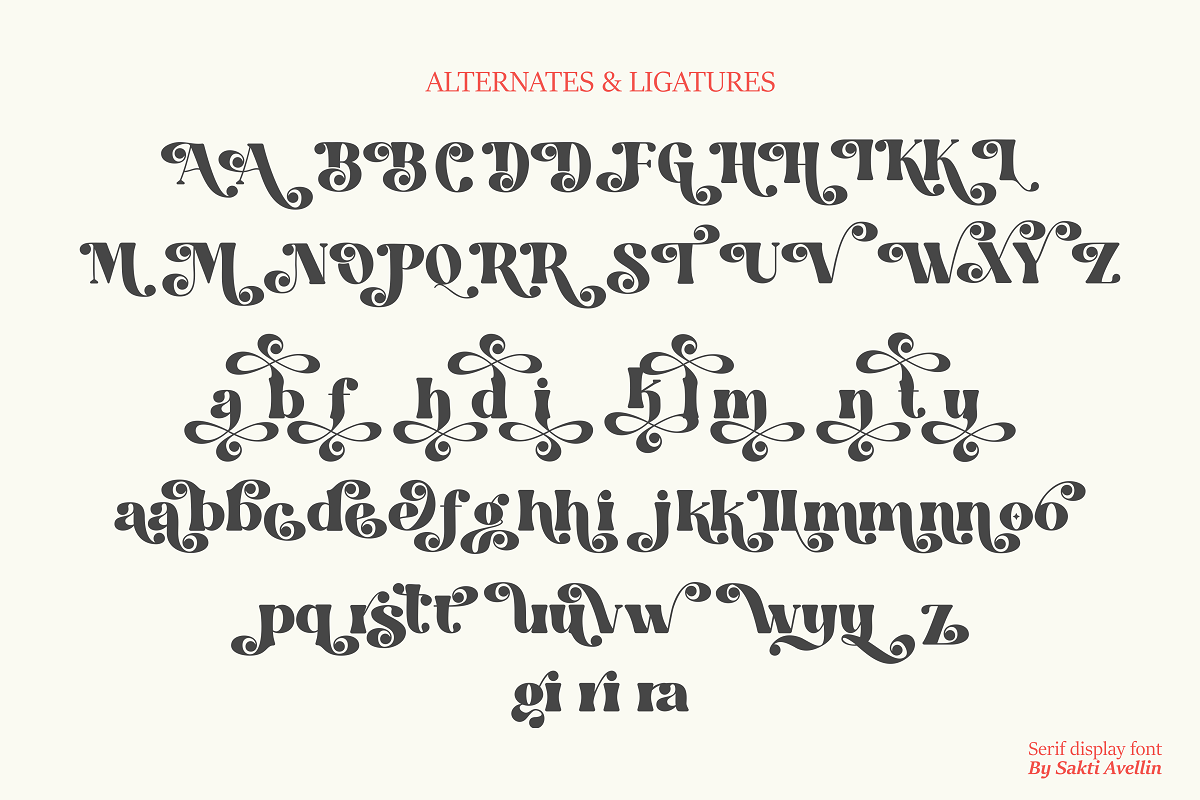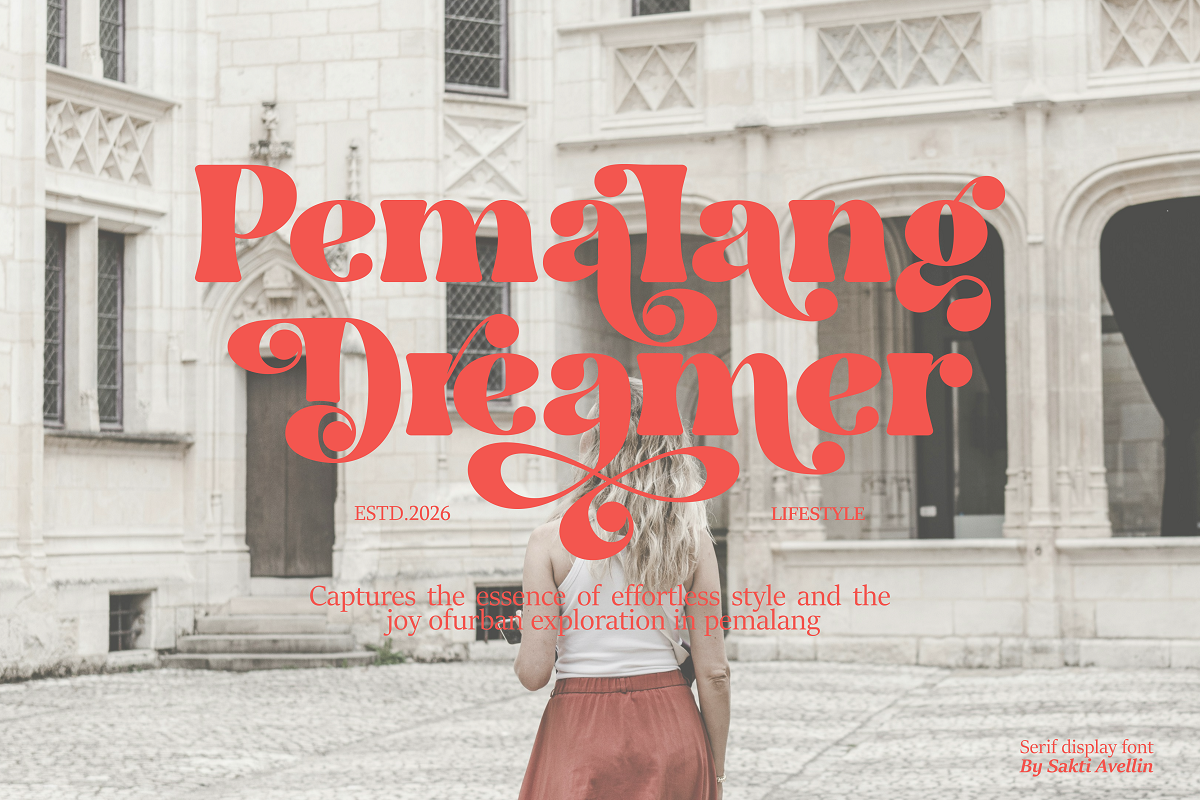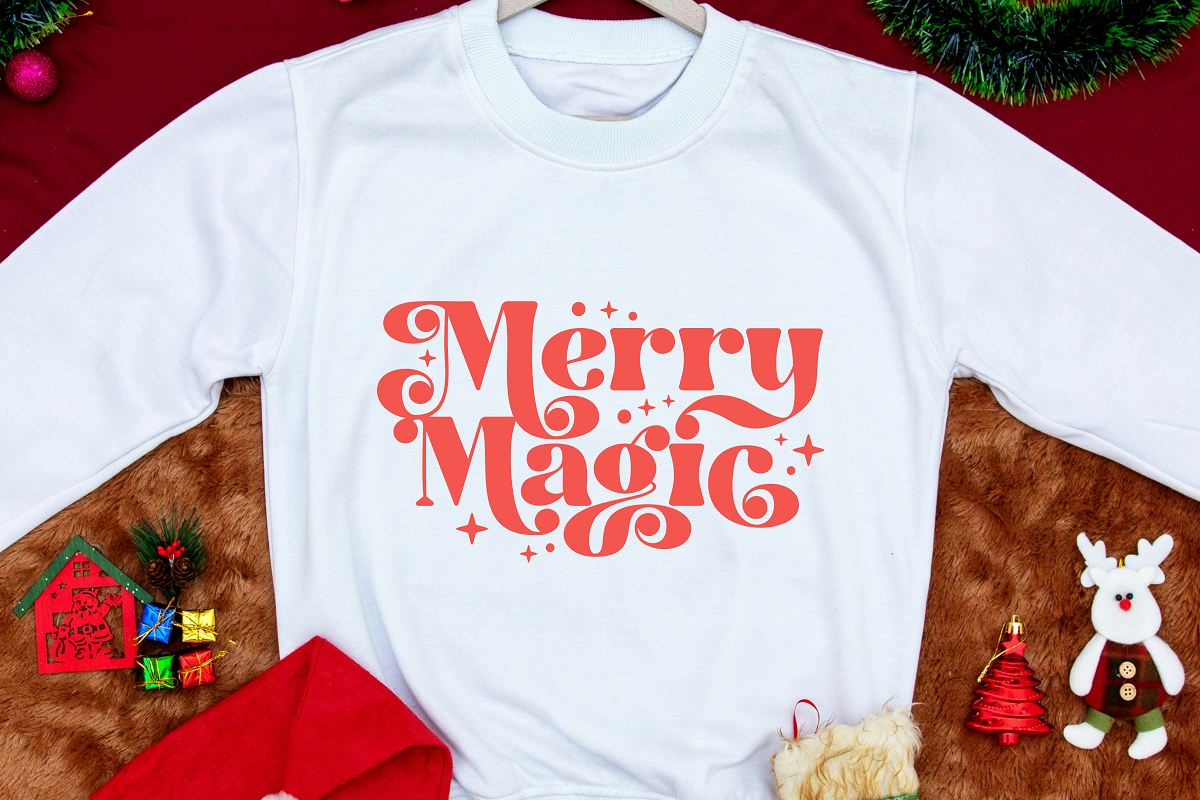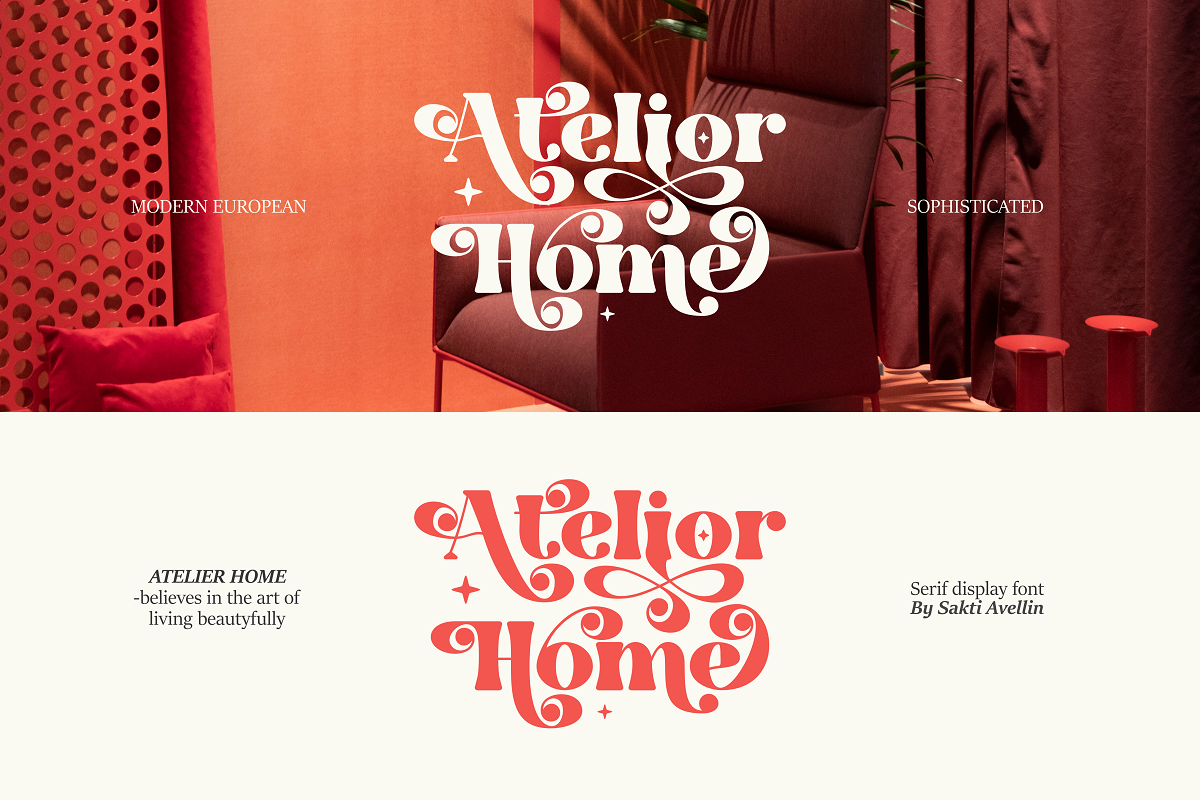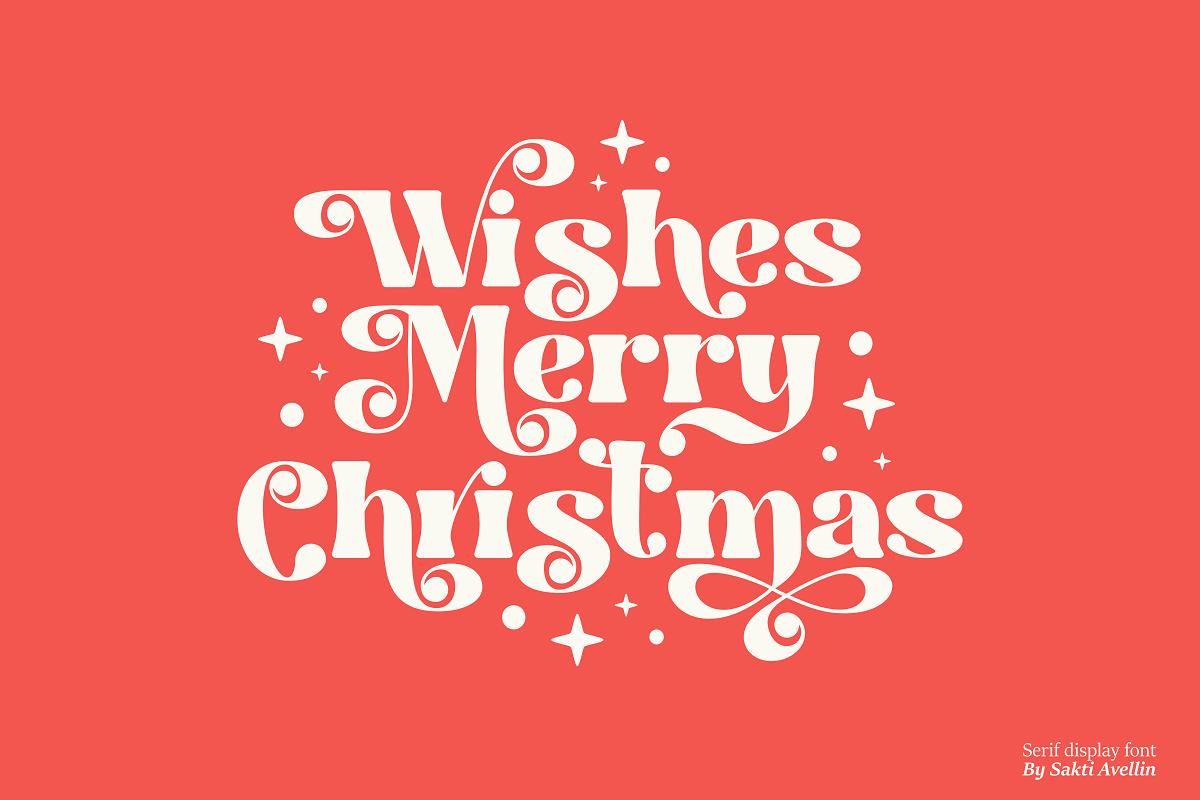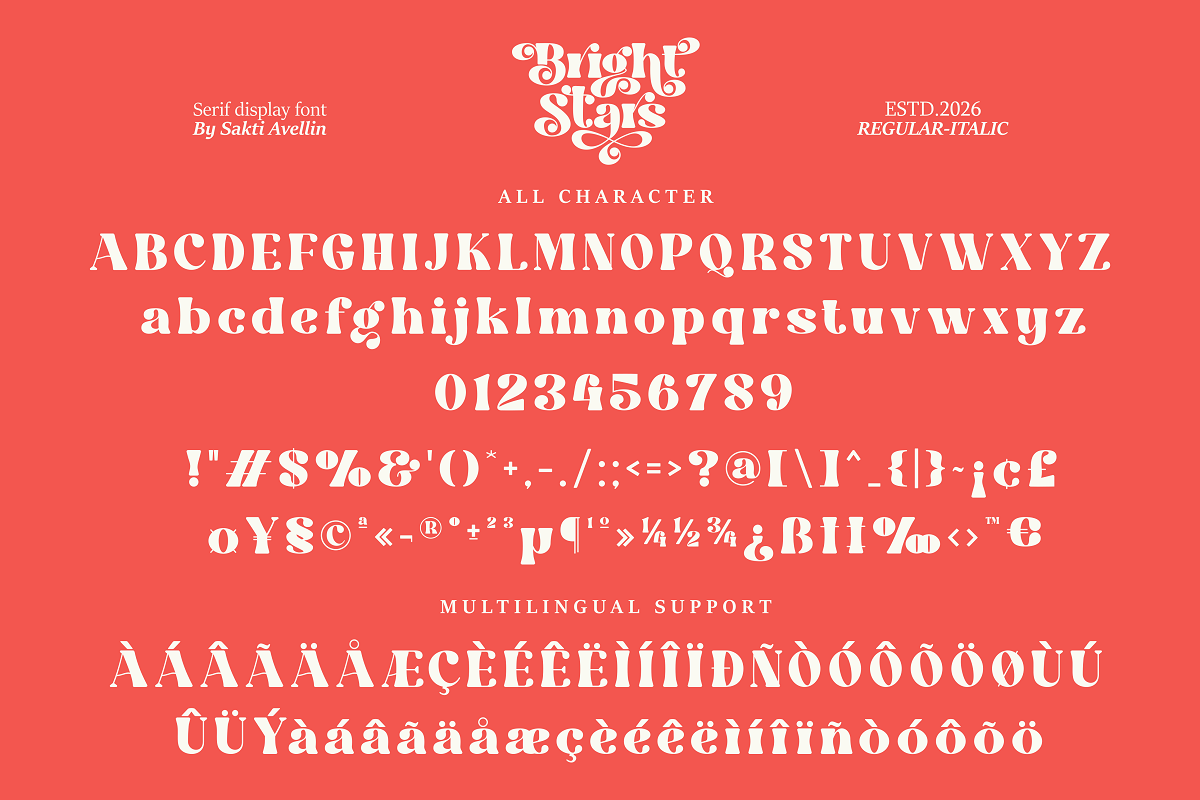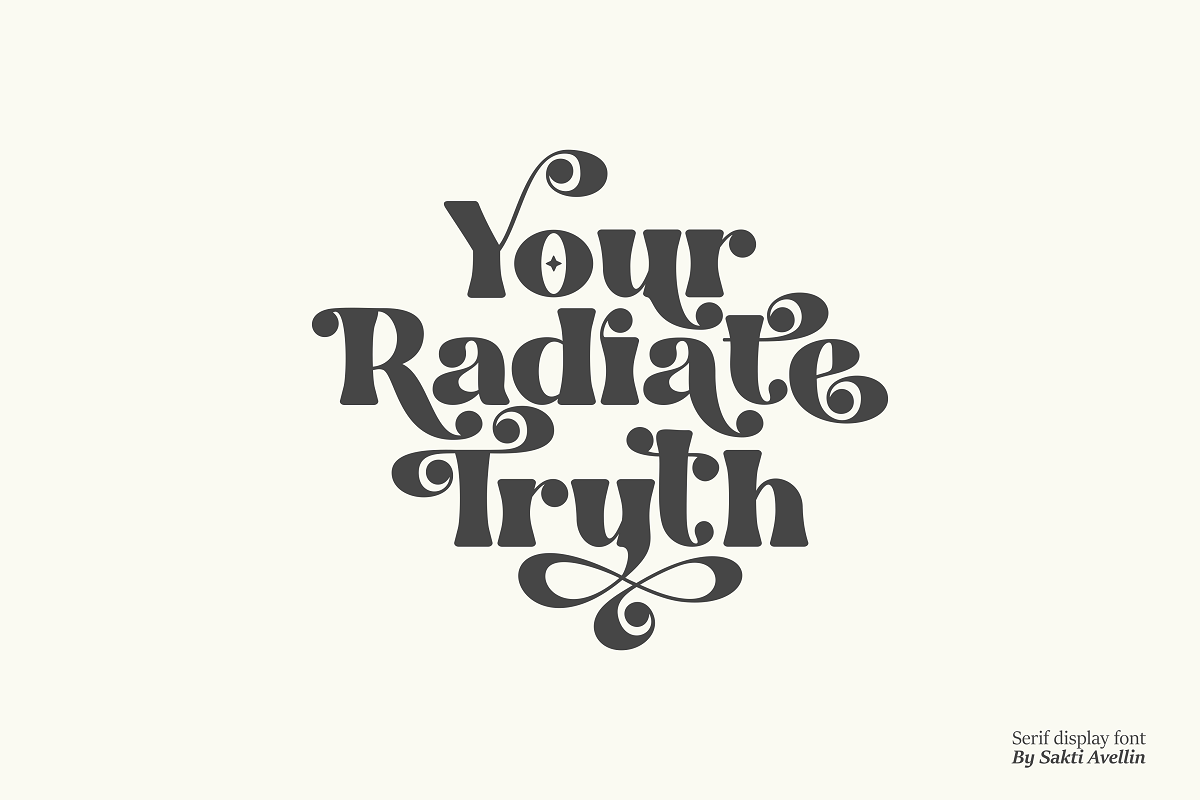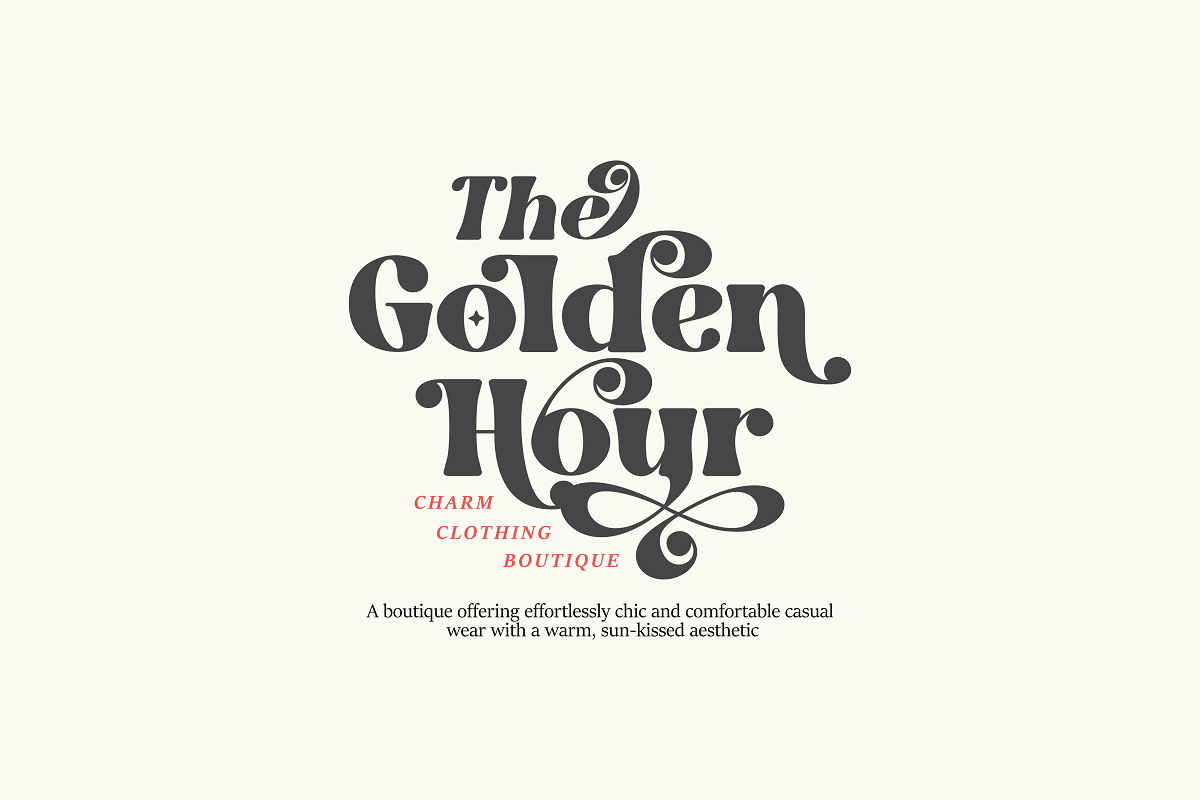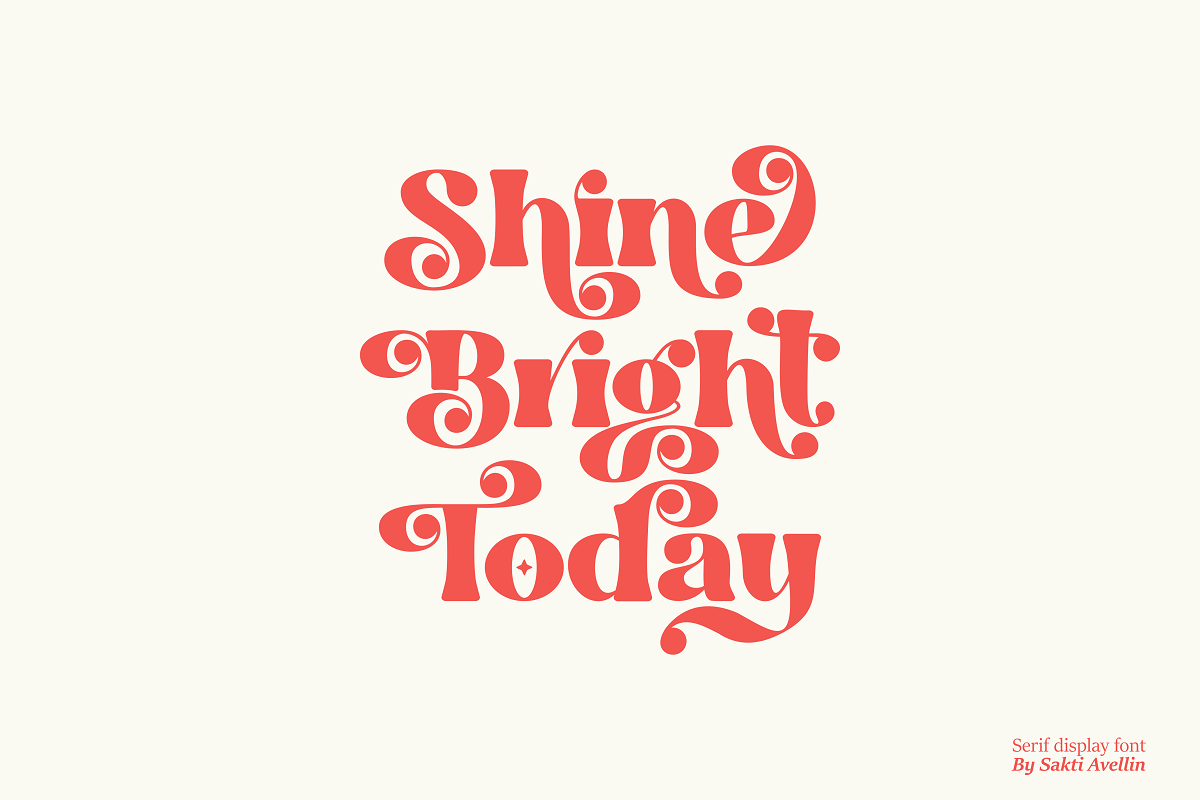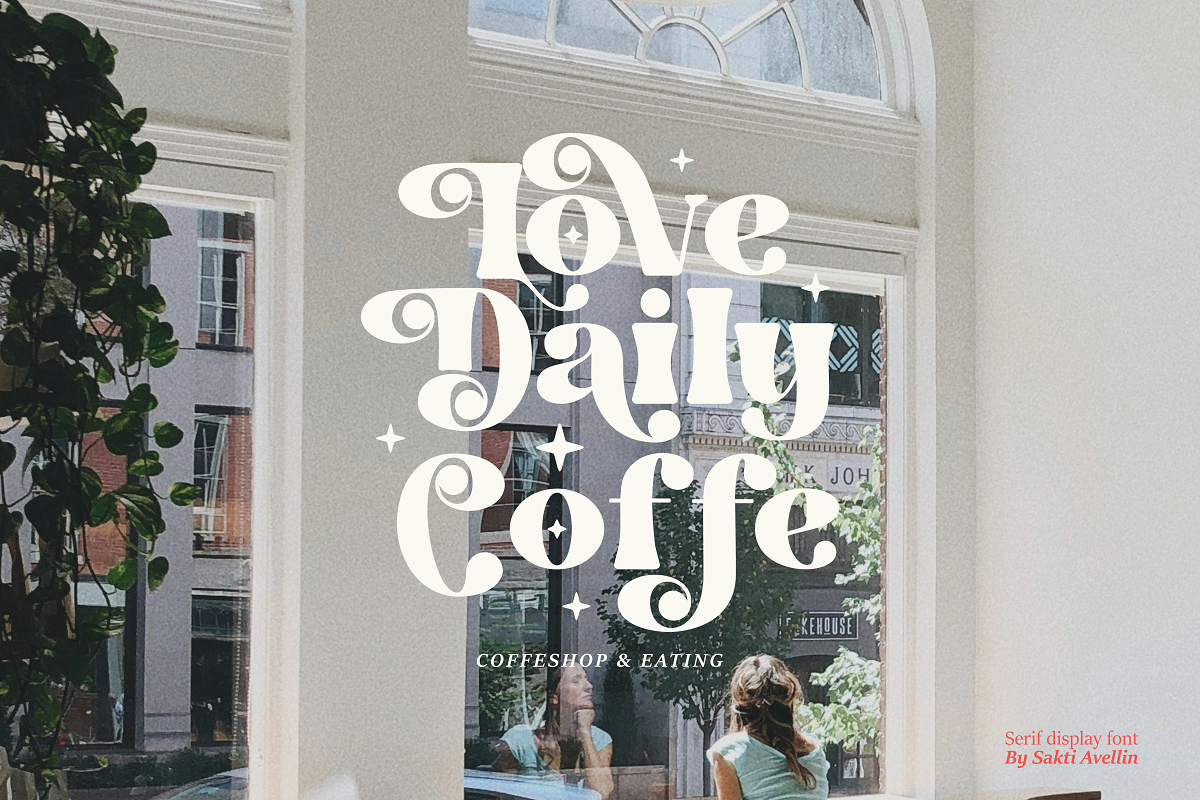
Bright Stars - A Serif Display
Bright Stars is an incredibly charming, cute handwritten display font that radiates playful energy and optimism. This chunky font features thick, rounded characters with an engaging, bouncy style, making it perfect for kids' branding, cheerful party invitations, fun feminine logos, nursery decor, and eye-catching social media graphics. Its high visibility and friendly aesthetic ensure it works powerfully as a display typeface, ideal for product packaging and crafting projects aimed at a happy, youthful audience. Let your creative work shine with this delightful and modern playful font!